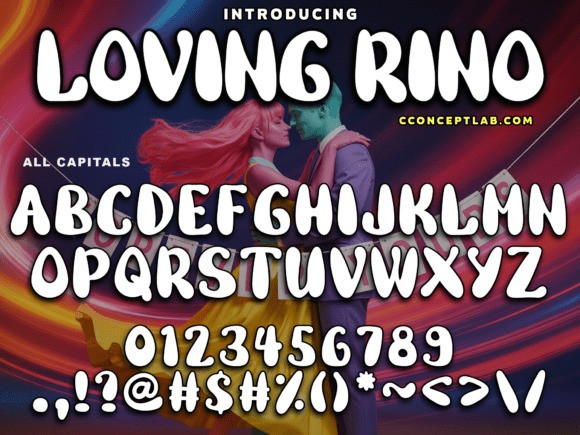
Loving Rino Font
Loving Rino Font is an incredibly unique children groovy font. Masterfully designed to become a true favorite, this font has the potential to bring each of your creative ideas to the highest level! With its comic, cartoon and aesthetic look, this font is ideal for branding, theme posters, invitations, posters, inspirational quotes, or merchandise with natural handwritten vibe.